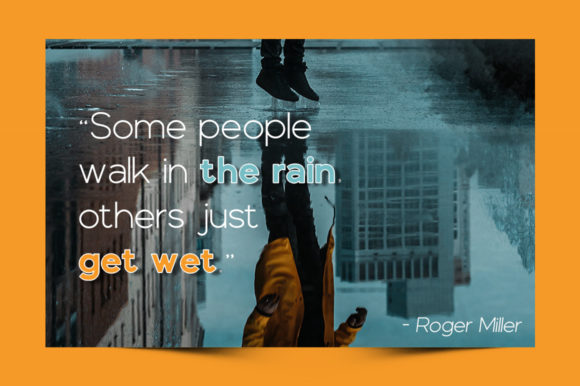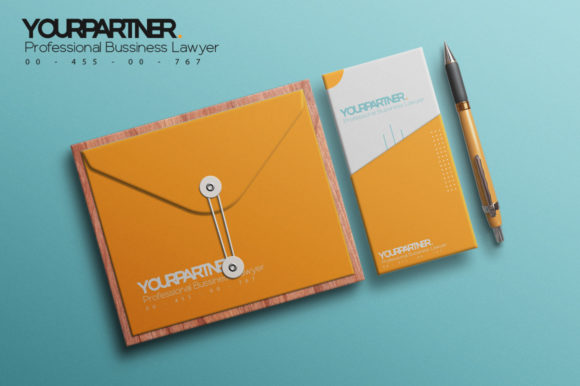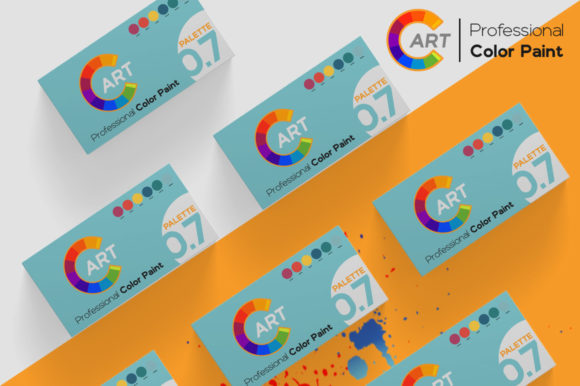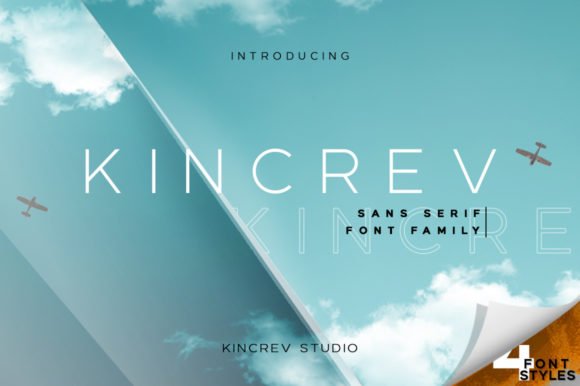
Introduction to Kincrev Font
Kincrev is a minimal, yet elegant sans serif font.
Suitable to a wide variety of designs due to its neat and simple style, this font has the potential to become your favorite go-to font, no matter the occasion .
Key Features of Kincrev Font